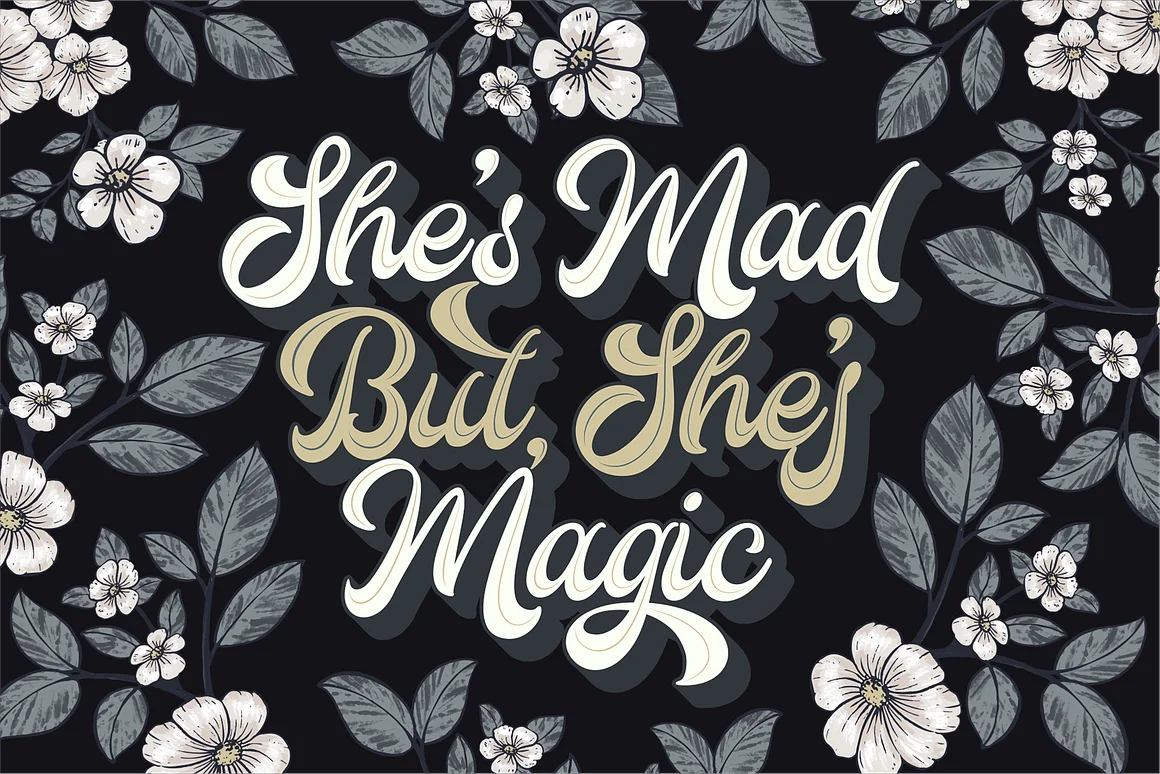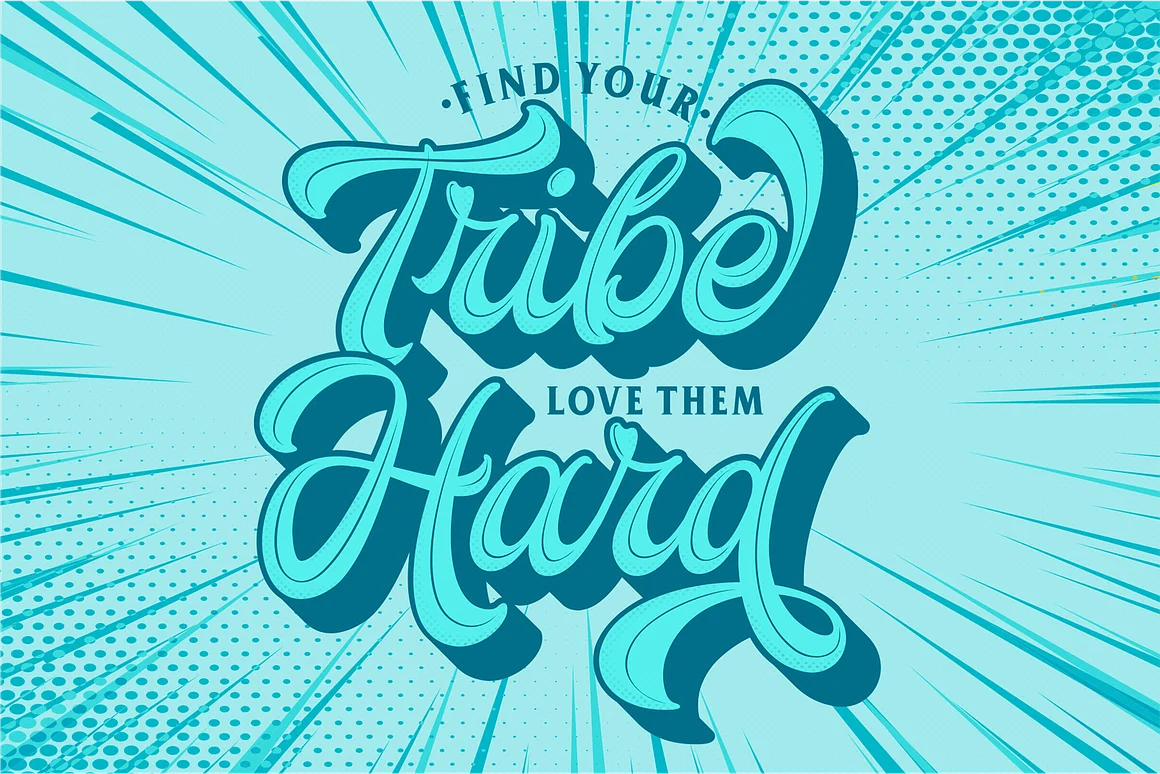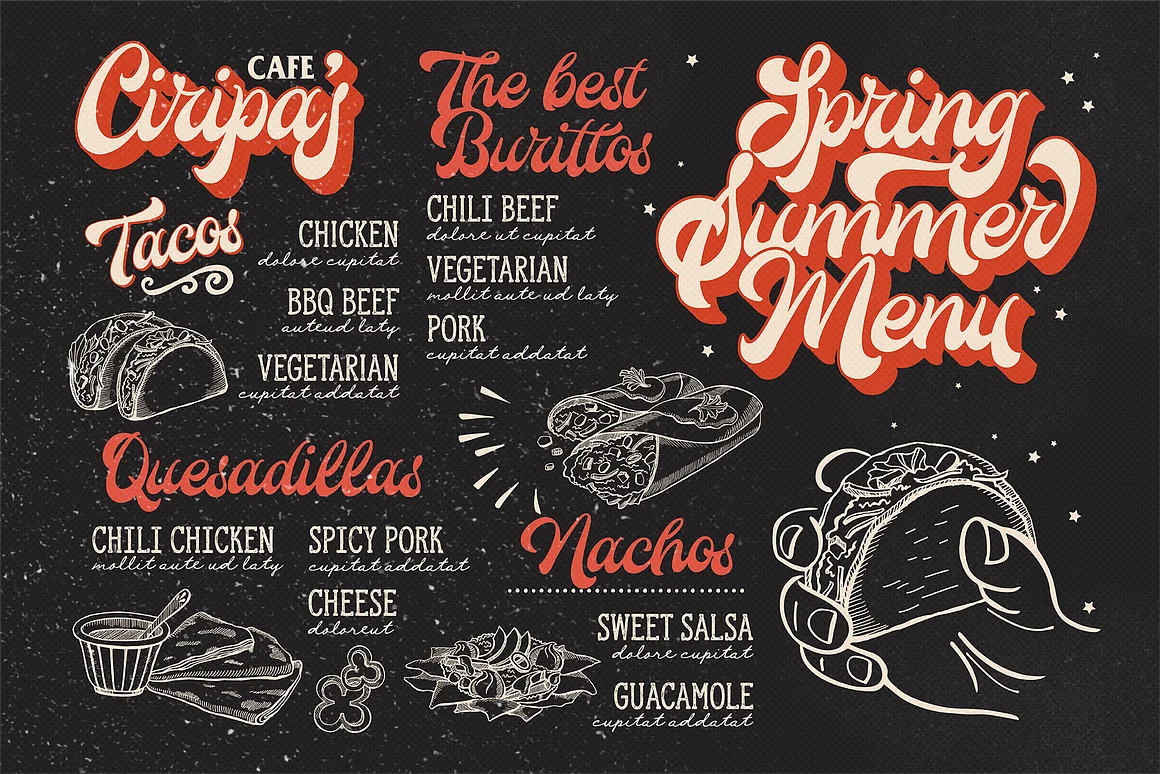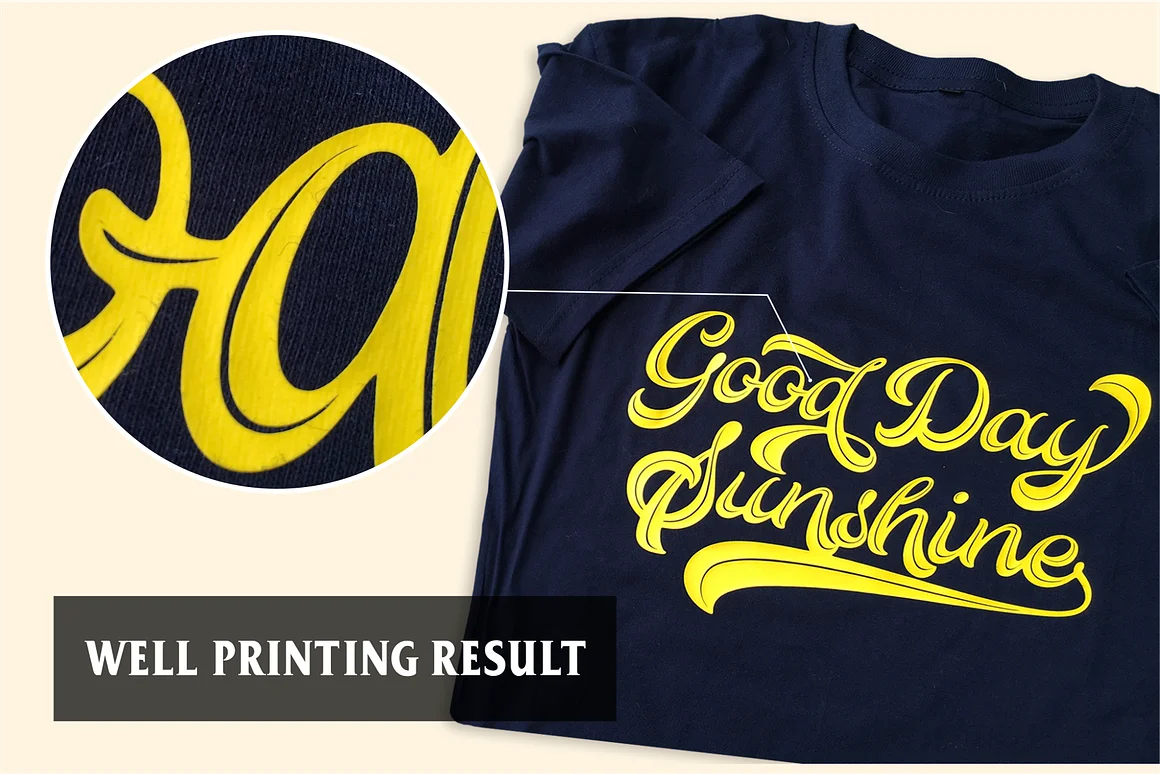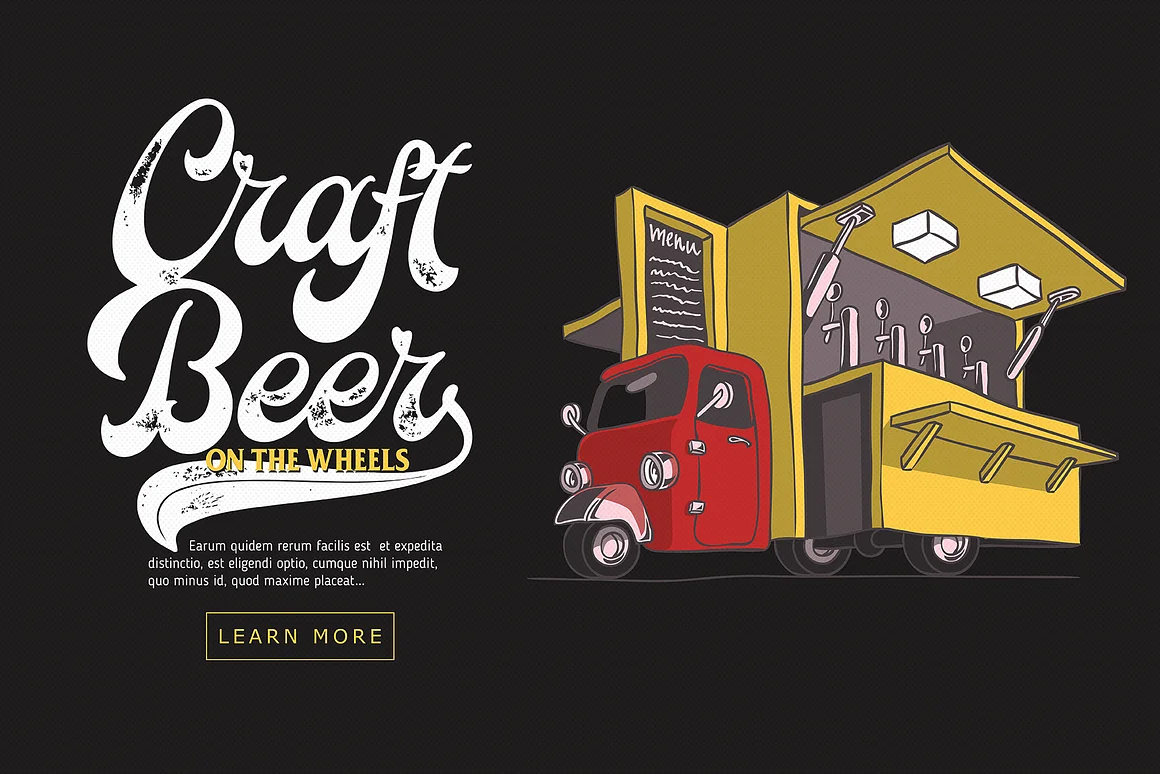
Retro Fonts - Bon Voyage
Hey 'Bon Voyage!' inspired by popular retro handlettering in the 70's added with a touch of pop style, this font looks unique and elegant. This handmade font is made with several precision layers with a total of 526 glyphs. Bon Voyage Script is very easy to use without taking your time. And makes it easy for you to make lots of creations easily.